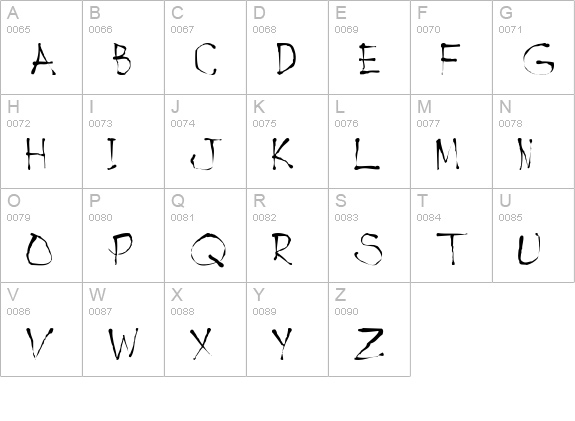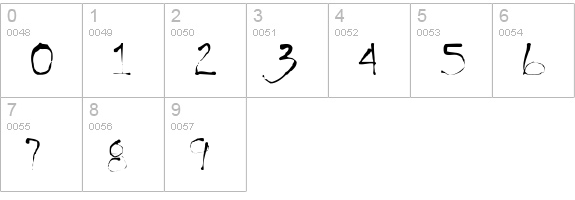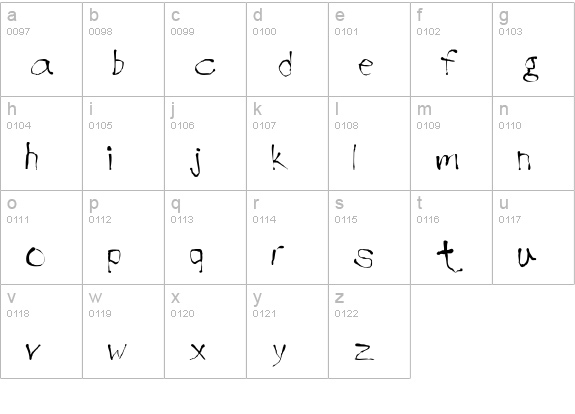
Handwrite-InkblotA font is a unique and creative typeface that brings a touch of artistic charm to any design project. Its handwritten style captures the essence of free-flowing ink, giving each character a delightful sense of unpredictability and organic beauty. The Handwrite-InkblotA font is perfect for those seeking a font that breaks away from convention and adds a touch of personality to their designs. Each letter is carefully crafted, with the inkblot effect adding an element of surprise and intrigue. Whether you're creating a poster, logo, or any other creative project, this font is sure to make a lasting impression. One of the greatest features of Handwrite-InkblotA font is that it is freely available to download at FontsMarket.com. This means that you can easily access this font and incorporate it into your designs without any cost. With just a few clicks, you can bring a touch of artistic flair to your work, all while keeping your budget intact. The Handwrite-InkblotA font is not only visually appealing, but it also offers great versatility. It can be used in a variety of design styles, from modern and edgy to whimsical and playful. Its irregularities and imperfections add a sense of authenticity and character, making it an ideal choice for projects that require a handcrafted feel. Whether you're a professional designer or a hobbyist looking to add a creative touch to your projects, the Handwrite-InkblotA font is a must-have. Its unique and captivating style will instantly elevate your designs and set them apart from the crowd. So why wait? Head over to FontsMarket.com and download this font for free today. Let your creativity flow with Handwrite-InkblotA font!